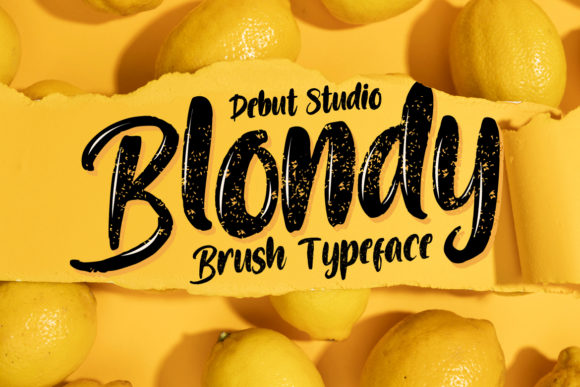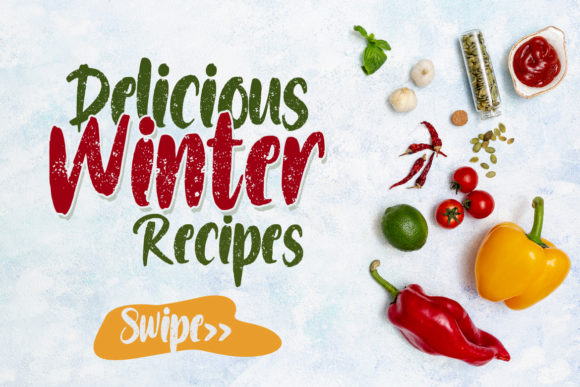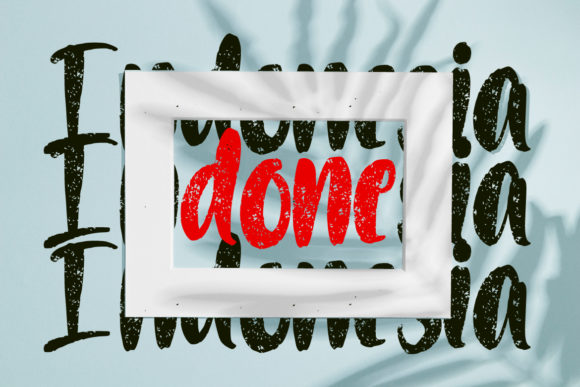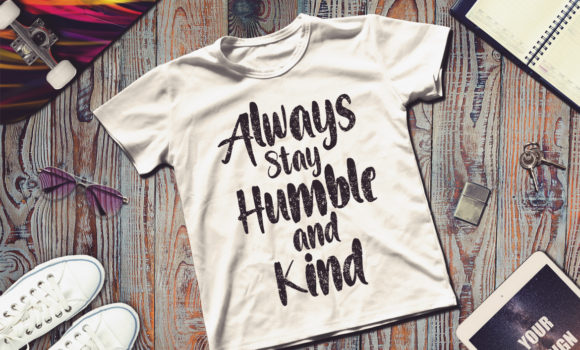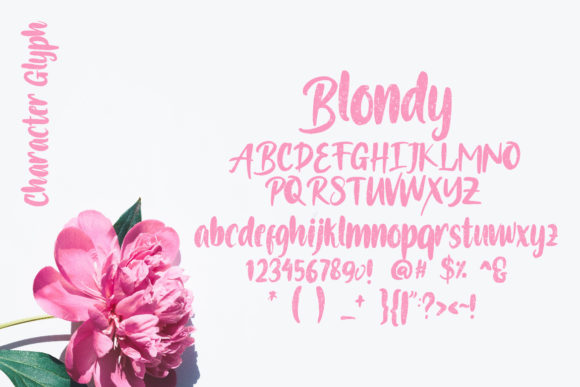
Blondy Font
About Blondy Font
Blondy is a sweet and fun handwritten font that’s great for turning any design project into a true standout. Fall in love with its authentic vibe.